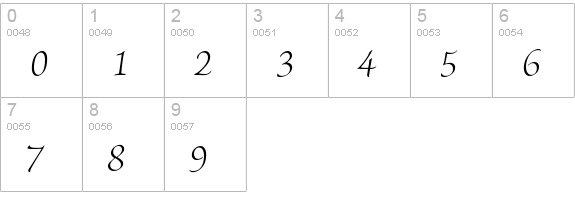
Brioso Pro Light Italic is a refined, elegant, italic variant in the Brioso typeface family \xE2\x80\x94 well suited to elegant body text, refined sub-headings, and luxury branding.
Brioso Pro Light Italic is a sophisticated and elegant font that exudes charm and refinement. With its delicate slant and graceful curves, this typeface is perfect for adding a touch of sophistication to your designs. The light weight adds a subtle and airy quality, making it ideal for conveying a sense of elegance and sophistication. This font is perfect for use in branding, editorial design, and any project where a touch of sophistication is needed. Its versatility allows it to be used in a wide range of design applications, from luxurious branding to elegant invitations. Best of all, Brioso Pro Light Italic is available for free download at FontsMarket.com. This means you can easily access this beautiful font and incorporate it into your projects without any cost. Don't miss out on adding this stunning typeface to your font library today!